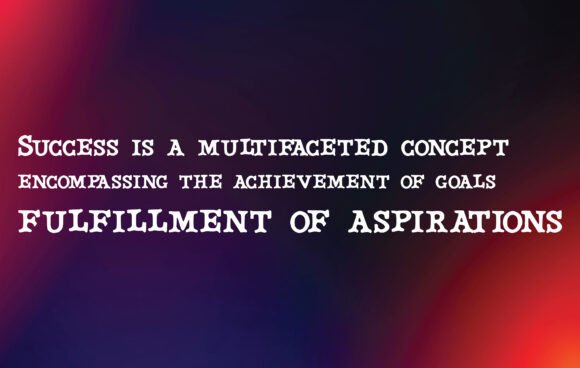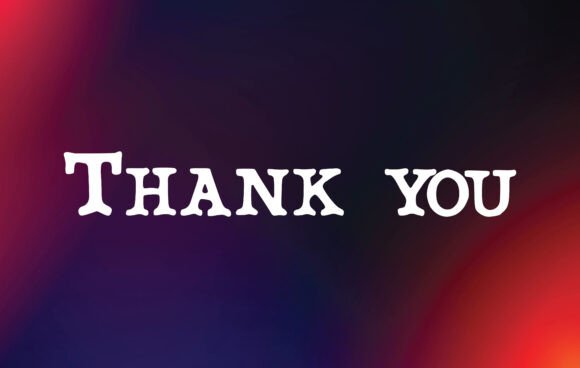
Discover the Versatility of Heather Font: Elevate Your Designs to New Heights
In the world of typography, a font can make all the difference in bringing your creative ideas to life. Heather Font is a stunning typeface designed to be a true favorite among designers and crafters. With its exceptional legibility and versatility, this font has the potential to take your designs to the highest level. Whether you’re working on magazine headlines, t-shirts, social media graphics, branding, wedding invitations, or cards, Heather Font is the perfect choice.
What Makes Heather Font Stand Out?
Heather Font boasts a unique blend of style and functionality, making it an excellent addition to any design project. Here are some of its key features:
- Legibility: Heather Font is designed to be highly legible, ensuring that your text is clear and easy to read, even at small sizes.
- Versatility: This font is suitable for a wide range of design applications, from titles and body text to headlines and captions.
- Style: Heather Font has a distinctive look that adds a touch of elegance and sophistication to any design.
Endless Design Possibilities with Heather Font
The versatility of Heather Font makes it an excellent choice for various design projects. Here are some ideas to get you started:
- Magazine Headlines: Use Heather Font to create eye-catching headlines that grab readers’ attention.
- T-Shirts and Apparel: Add a touch of style to your t-shirt designs with Heather Font’s unique and legible characters.
- Social Media Graphics: Elevate your social media presence with Heather Font’s help, creating engaging graphics that stand out.
- Branding: Establish a strong brand identity with Heather Font, using it for logos, business cards, and more.
- Wedding Invitations: Add a touch of elegance to your wedding invitations and stationery with Heather Font’s beautiful typography.
- Cards and Stationery: Use Heather Font to create stunning greeting cards, thank-you cards, and other stationery items.
Why Designers and Crafters Love Heather Font
Heather Font has quickly become a favorite among designers and crafters due to its exceptional quality and versatility. Here are some reasons why:
- Easy to Read: Heather Font’s legibility makes it perfect for body text, ensuring that your readers can easily understand your content.
- Highly Customizable: With Heather Font, you can experiment with various design elements, such as colors, textures, and sizes, to create unique and engaging designs.
- Unique Style: Heather Font’s distinctive look sets it apart from other fonts, allowing you to add a personal touch to your designs.
In conclusion, Heather Font is an exceptional typeface that can elevate your designs to new heights. Its legibility, versatility, and unique style make it perfect for a wide range of design applications. Whether you’re a designer, crafter, or DIY enthusiast, Heather Font is an excellent addition to your typography collection. So why wait? Discover the power of Heather Font and bring your creative ideas to life!